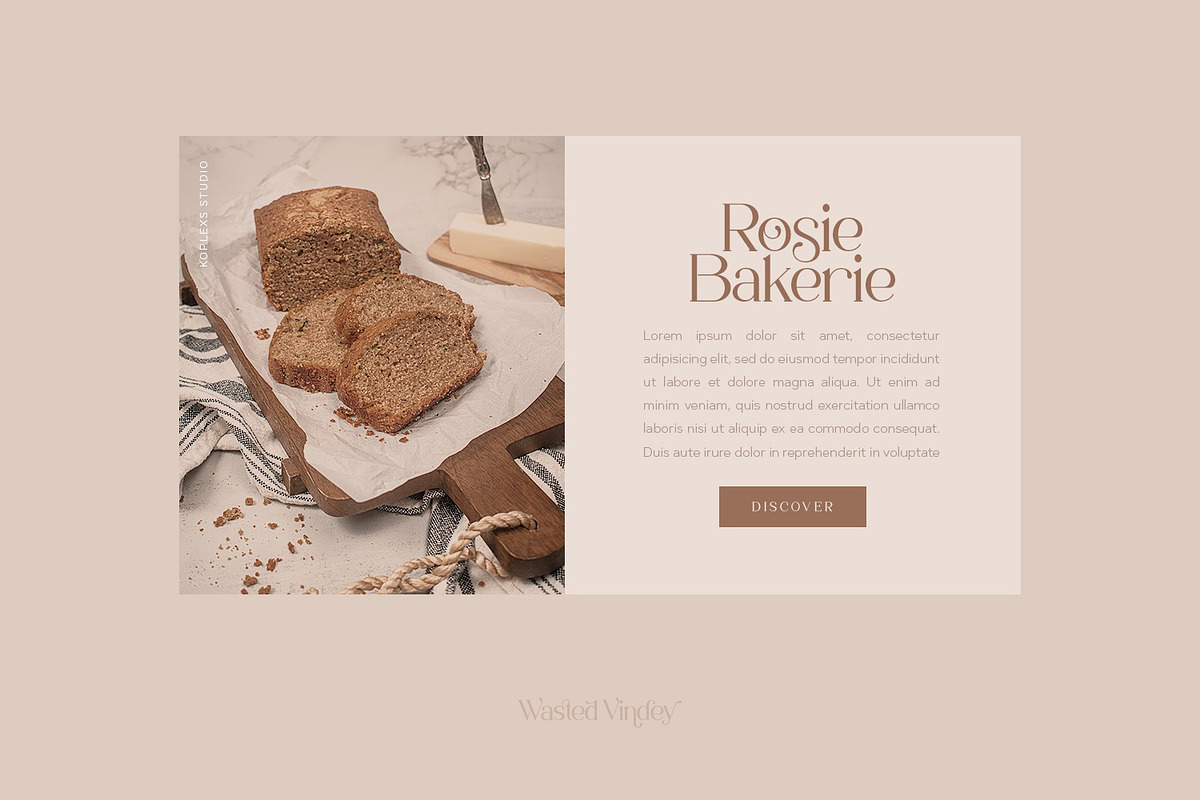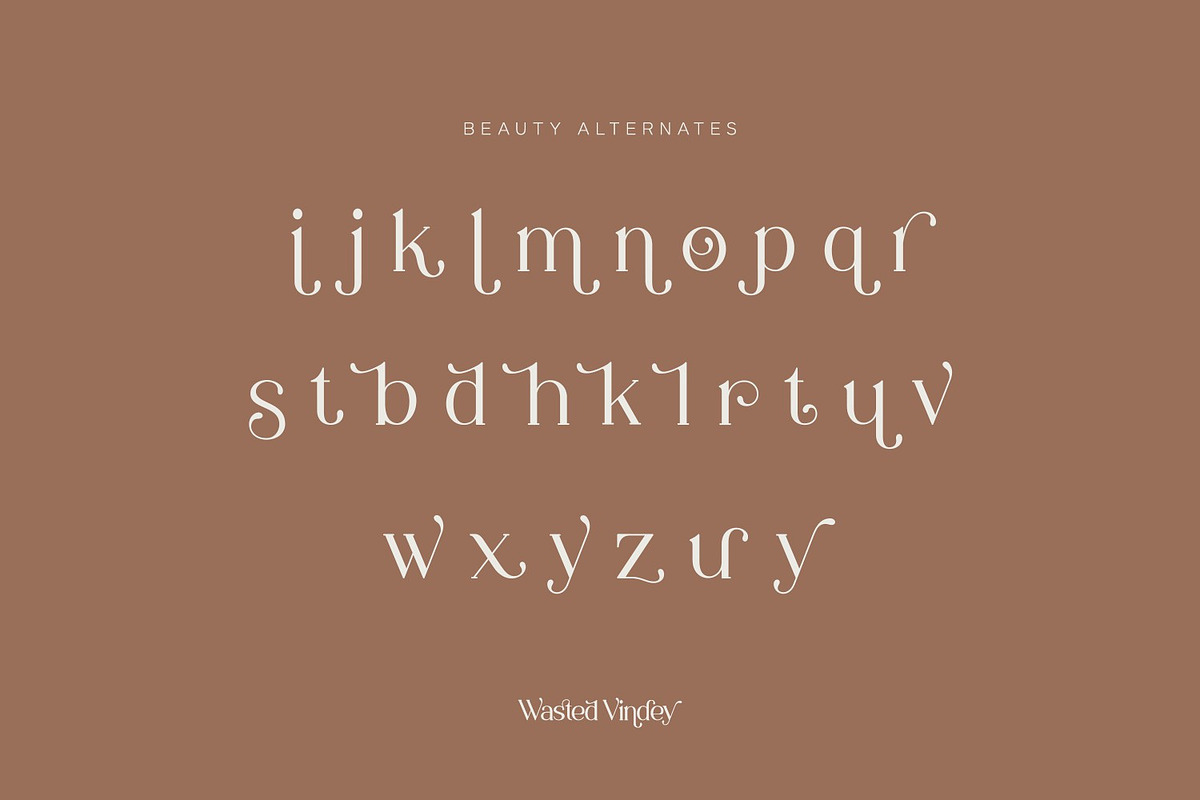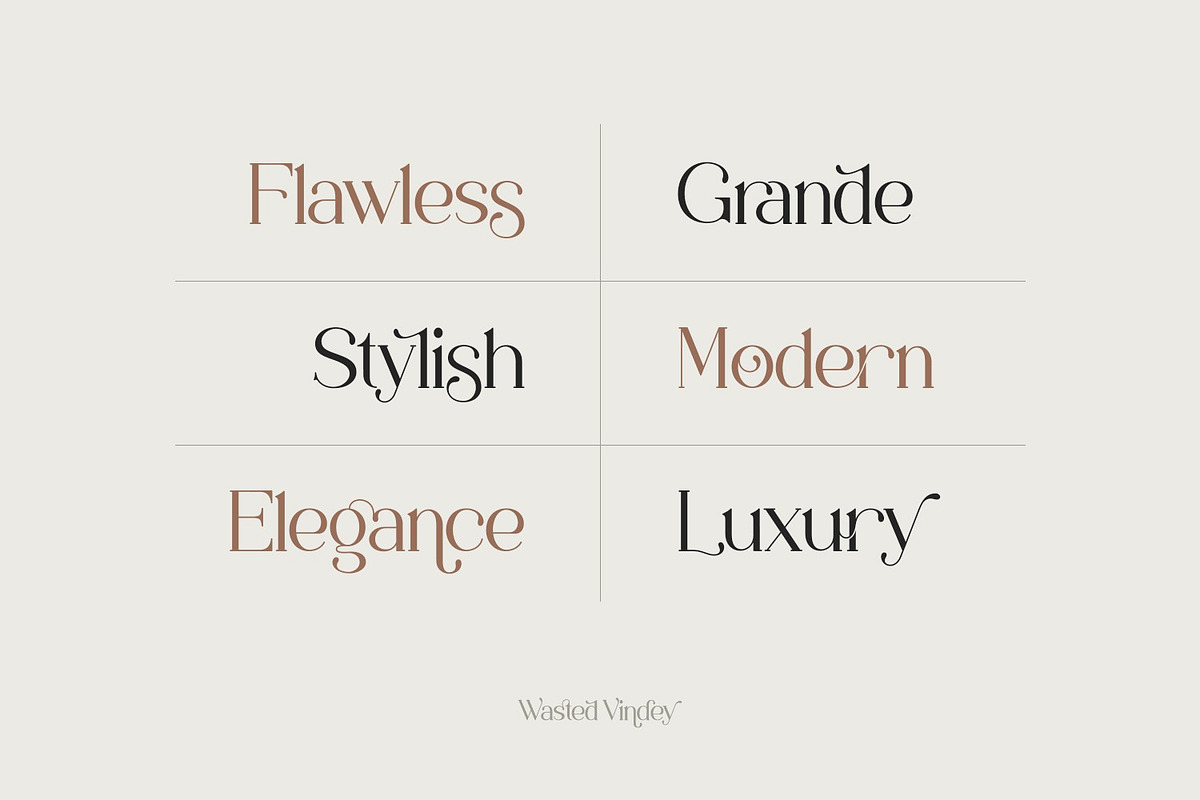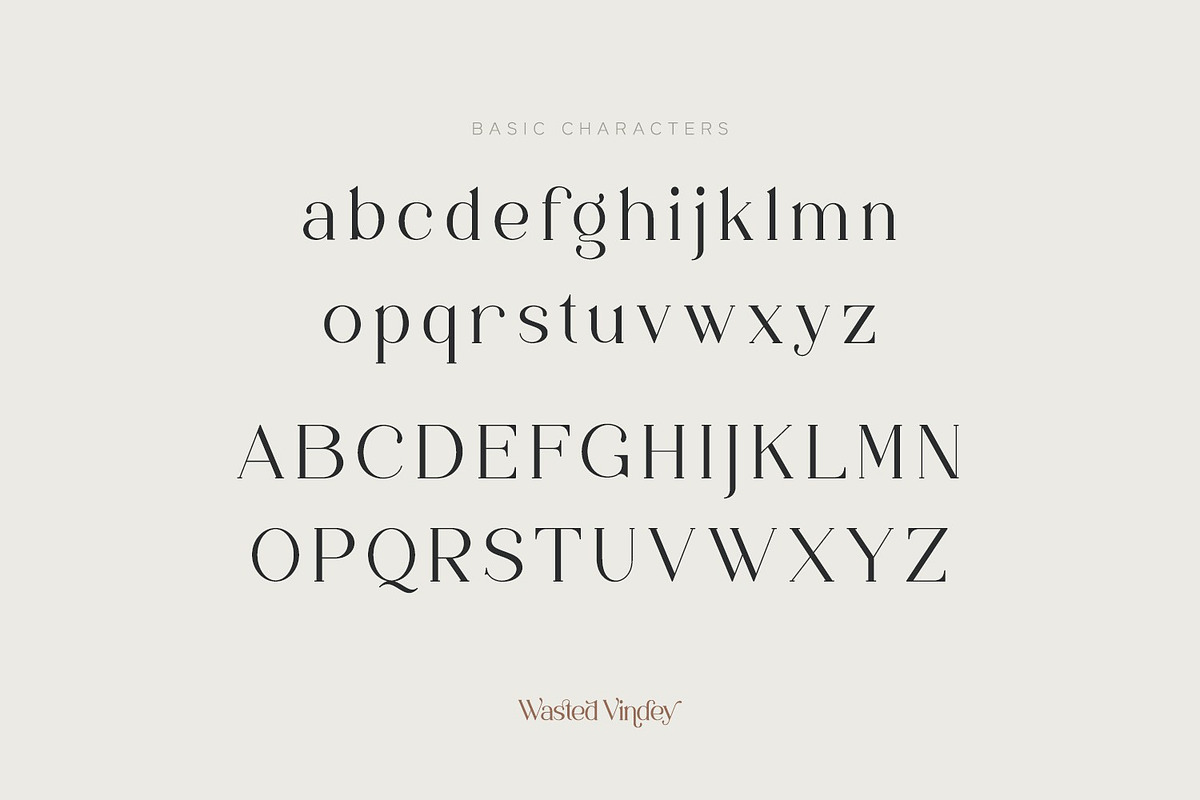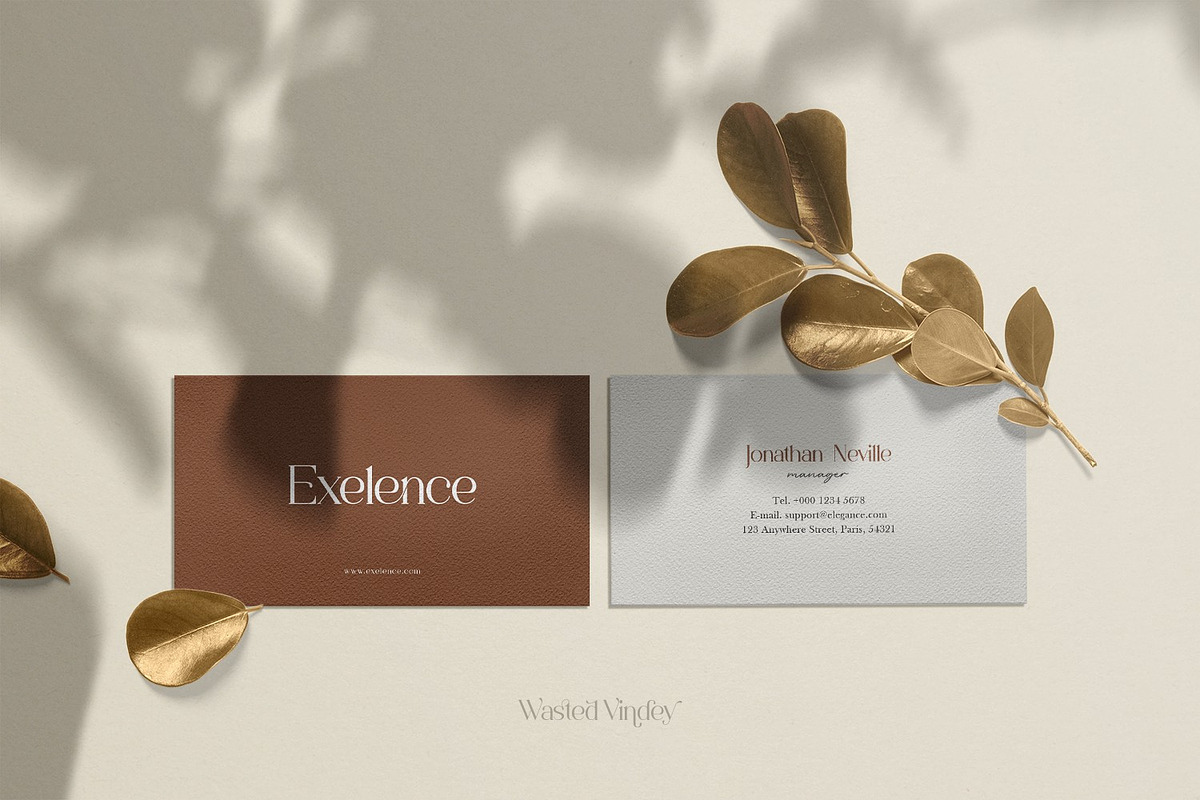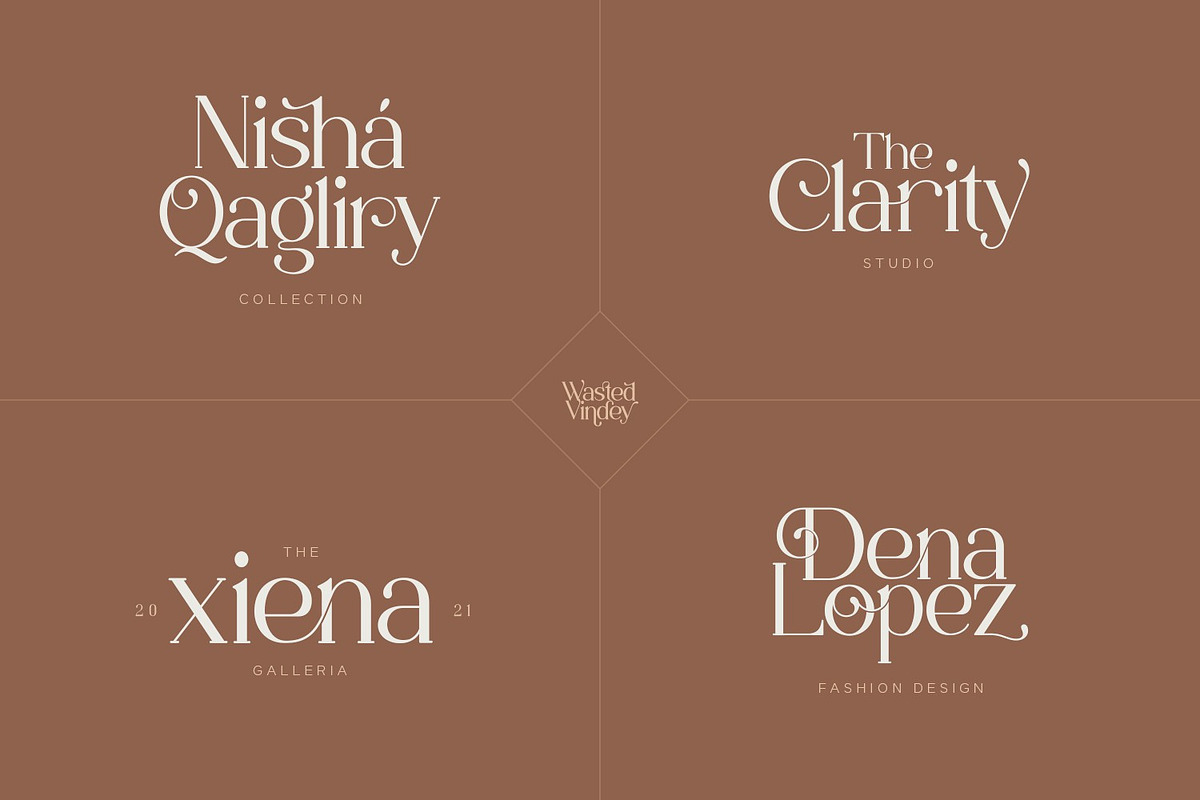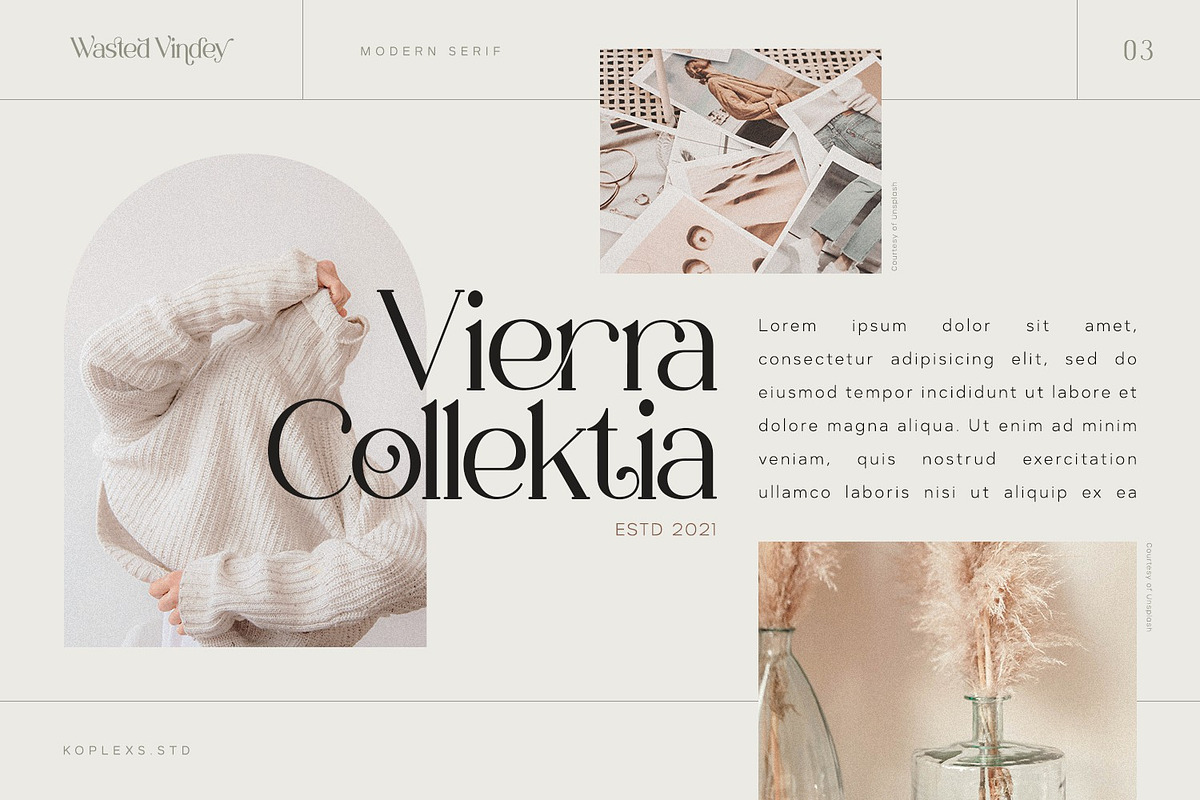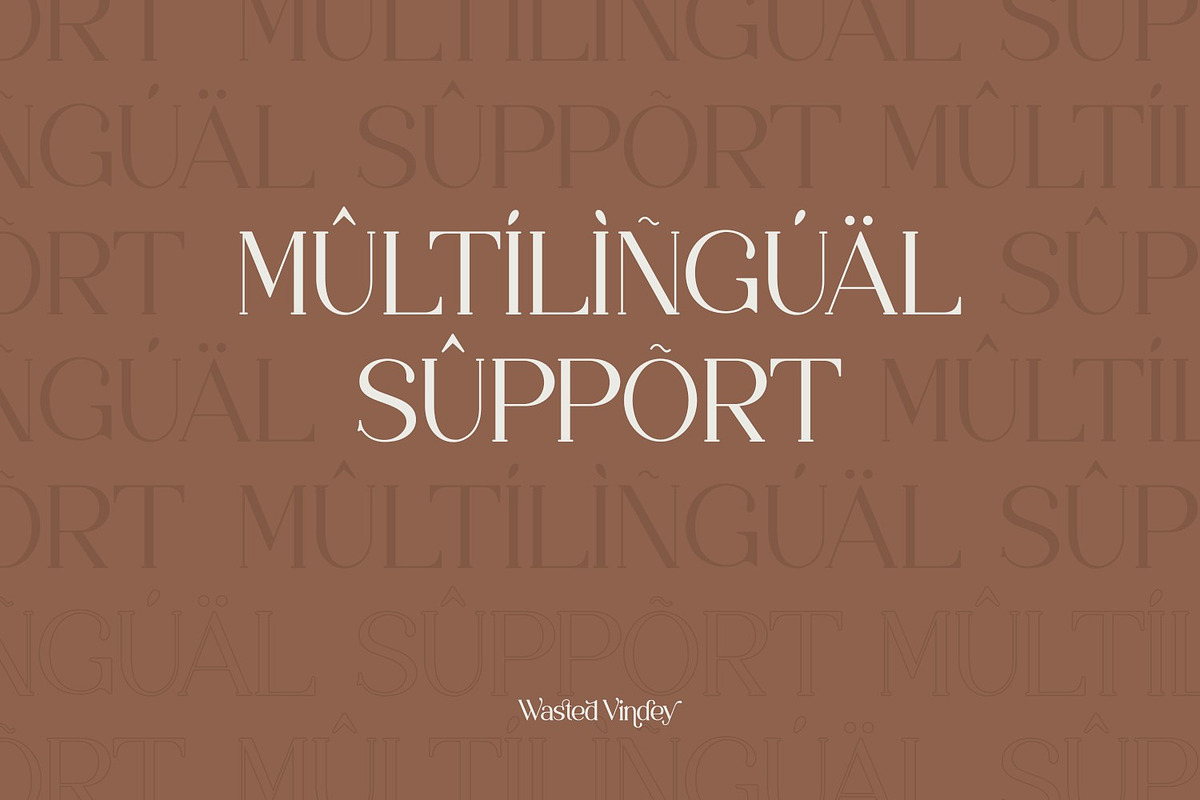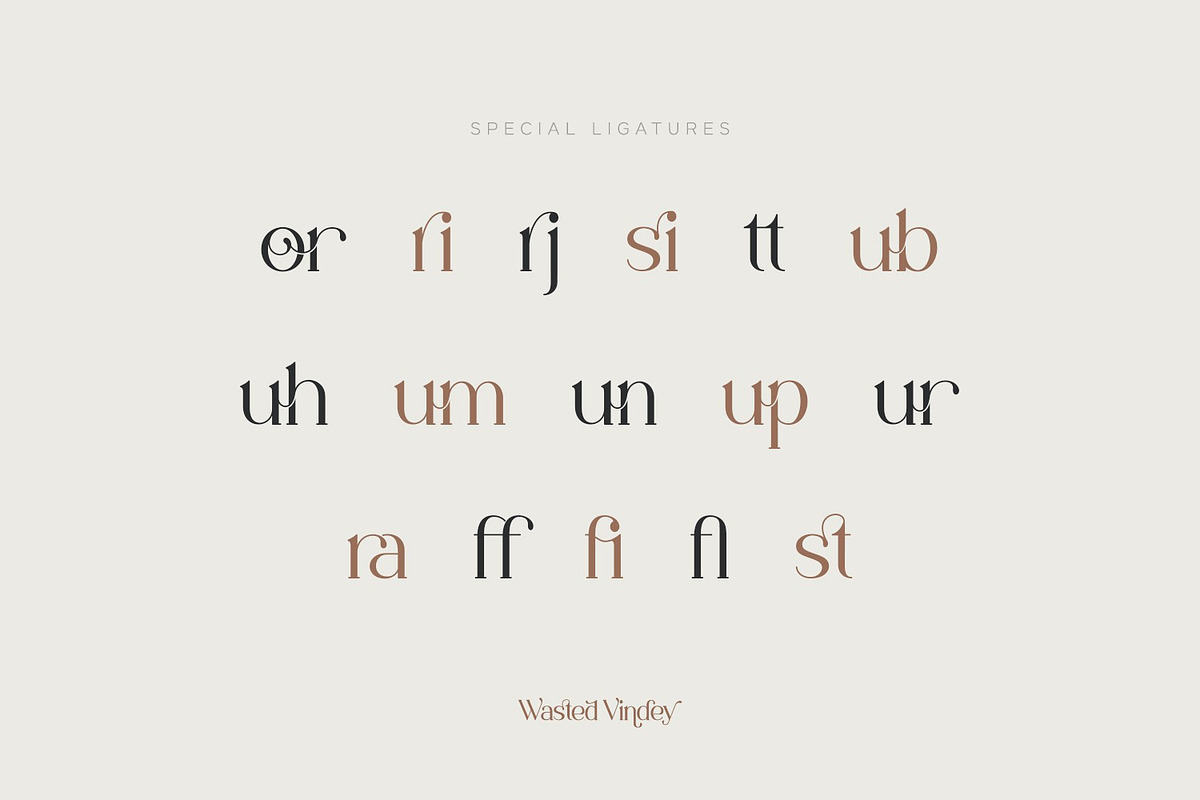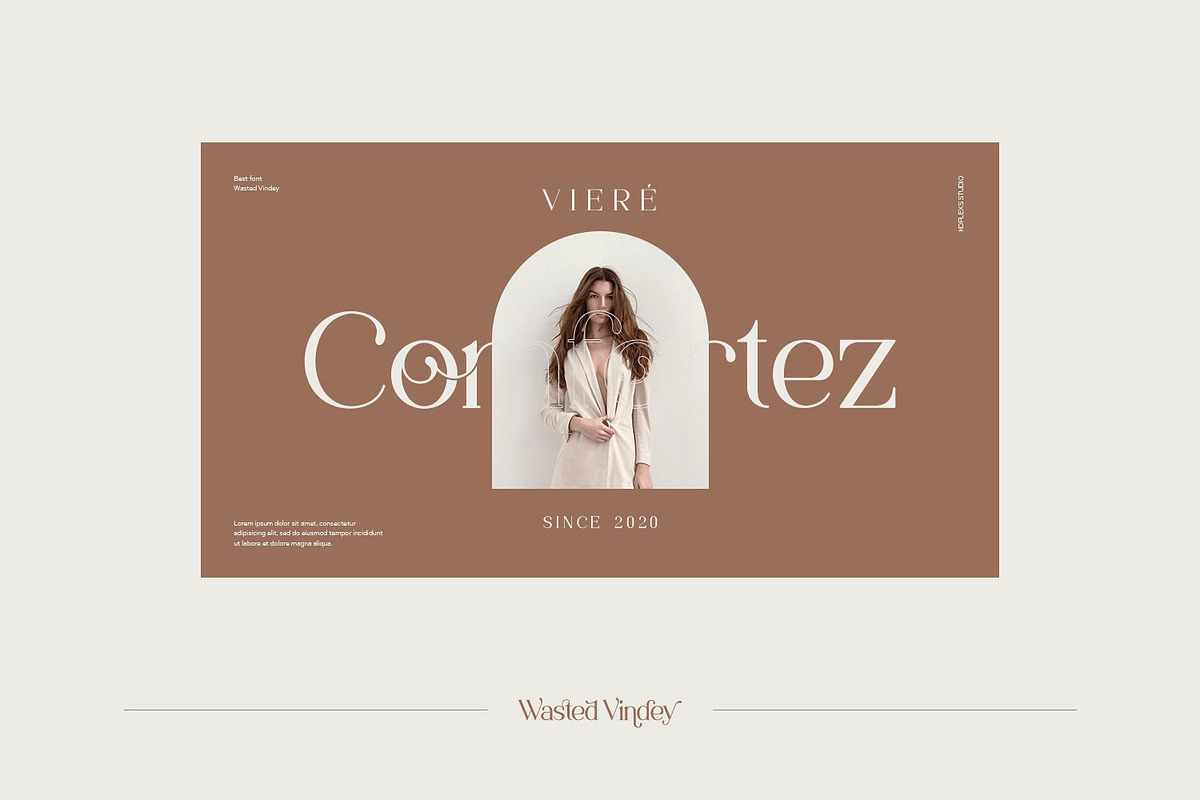
Wasted Vindey - Classy Serif Font
Wasted Vindey font is a collection of Classy, modern, feminine, beautiful and classy characters, giving you a unique look for any branding or design need.
Wasted Vindey font has a blend of beauty and classy feel, which has a variety of uses but is primarily intended for logos, book covers, perfumes, fashion magazines, or invitations. Not only will you find lots of decorative characters, but also the number of unique alternative characters will make you fall in love with this font.
Access your OpenType features to access the large selection of alternate letters and ligatures, select the letters you like from the large variety to look you are after.
Ligatures Features.
PUA Encoded Characters.
Support for 65 languages.